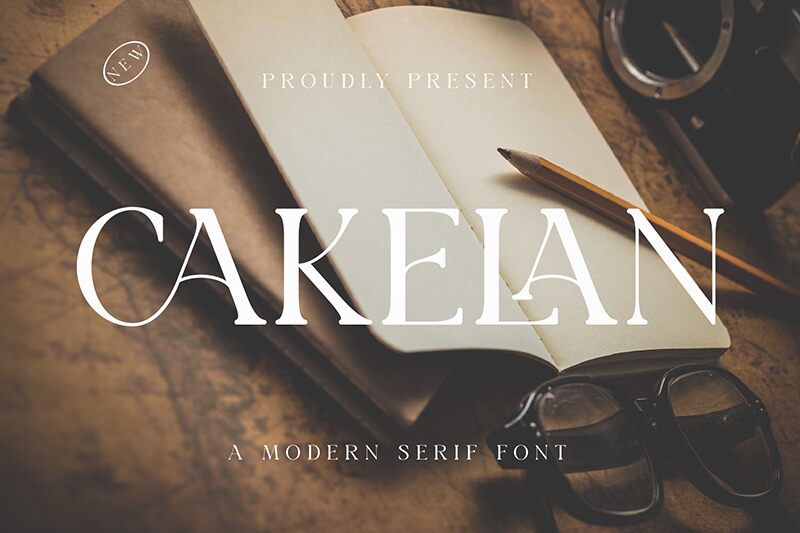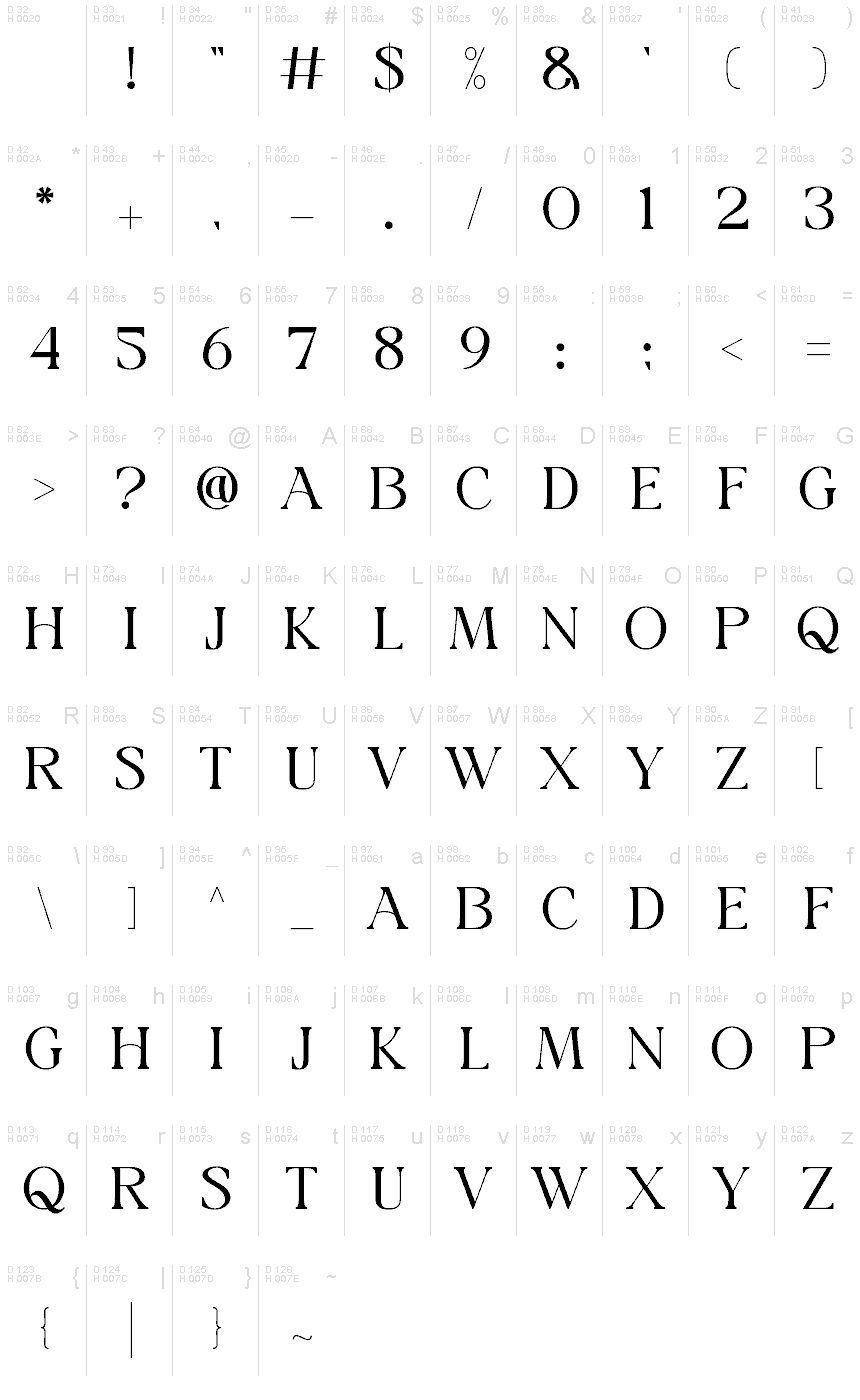
CAKELAN
Cakelan font by Muflihin Nurhabib is an elegant free serif font inspired by classic sophisticated typography. Its ornamental characters showcase striking beauty, which was possible because of its thin uniform line thickness. Exceptionally readable letters highlight Cakelan’s potential for use in small paragraphs besides its normal display use.
Get creative and go for excellence using this font in logo designs, headings, social media posts, invitations, page layouts, magazines, packaging printouts, quotes, cards, book covers and movie posters.